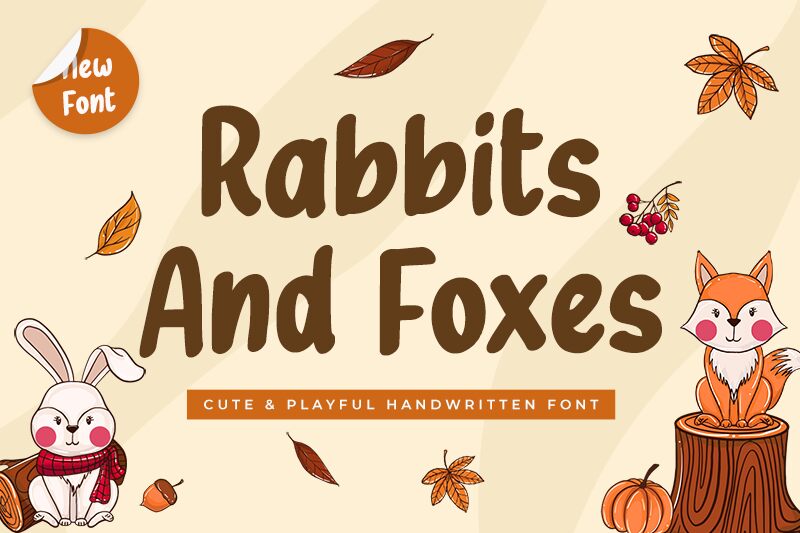
Rabbits And Foxes font is a cute and playful handwritten font designed by M Arif Dwi Prasetyo & Eko Nurcahyo of Creakokun Studio.
Rabbits And Foxes
Creakokun Studio
M Arif Dwi Prasetyo & Eko Nurcahyo